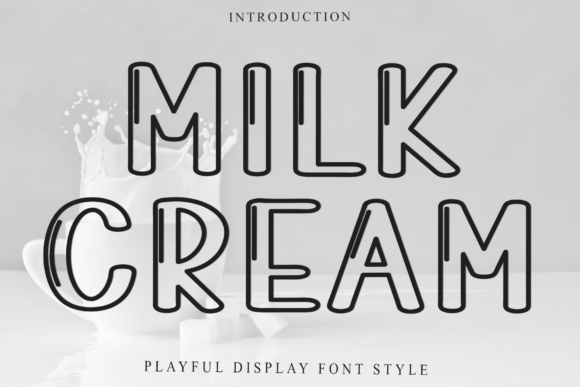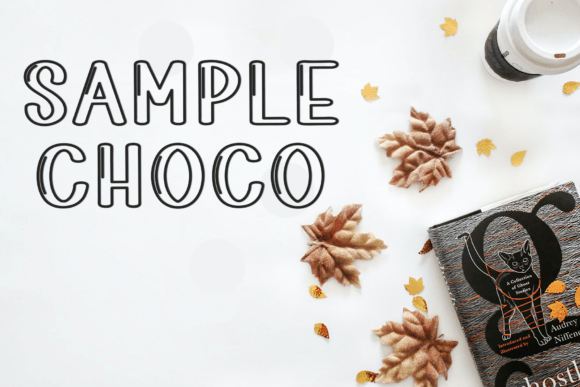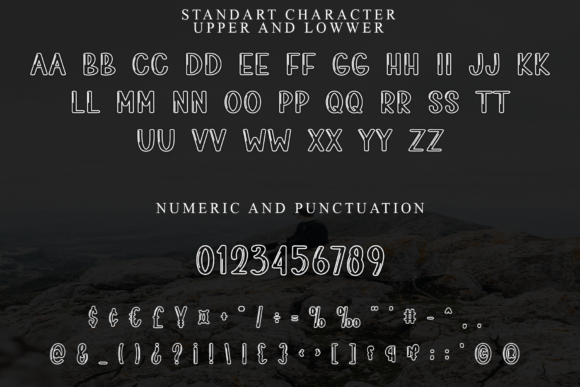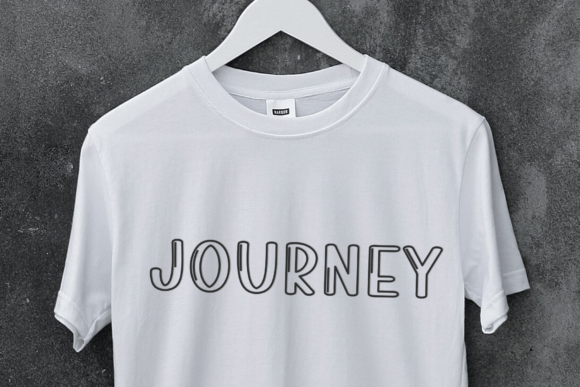
Milk Cream Font: A Cute & Playful Display Font for Social Media!
About the Milk Cream Font
Introducing the Milk Cream Font, a beautifully crafted typeface designed to elevate your creative projects. Milk Cream is a casual and creative font that exudes warmth and friendliness. Its round, playful strokes create a relaxed and approachable feel, perfect for personal projects, invitations, and social media graphics. The font’s charming, hand-drawn aesthetic adds a fun and unique touch to any design.
Milk Cream’s friendly, rounded forms make it ideal for headlines, short text blocks on packaging, and social media posts where a casual, approachable tone is desired. It works well for branding projects targeting a younger demographic or those emphasizing playfulness and warmth. However, its informal nature makes it unsuitable for body text, lengthy paragraphs, or applications requiring high readability, such as UI design or legal documents.
Pairing Milk Cream with a clean sans-serif like Montserrat or Lato provides a sophisticated contrast, balancing its hand-drawn charm with a modern feel. For a more playful effect, consider pairing it with a geometric sans-serif such as Futura or a script font like Pacifico, though ensuring sufficient contrast in weight and style remains crucial for readability.
The overall personality of Milk Cream is undeniably cheerful and approachable; its casual aesthetic suits brands focused on handmade goods, children’s products, cafes, or events with a lighthearted atmosphere.
Milk Cream Font Usage Examples
Milk Cream Font Example